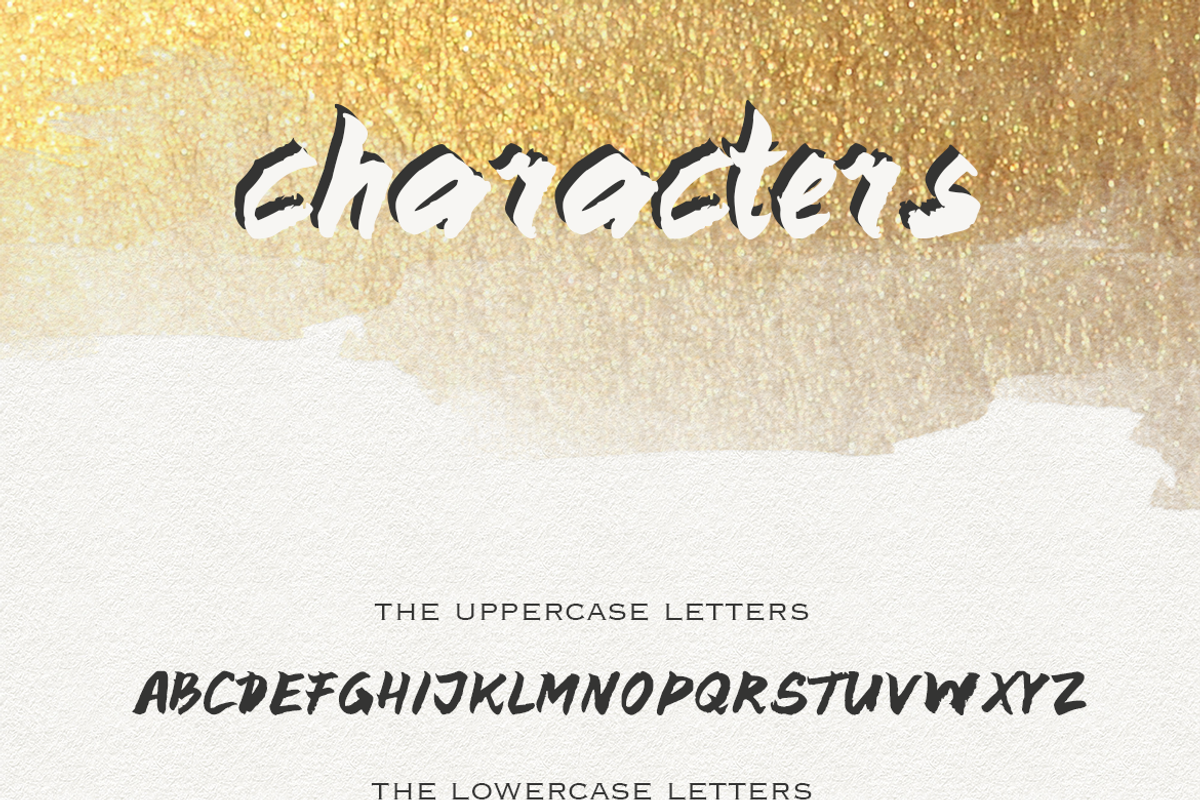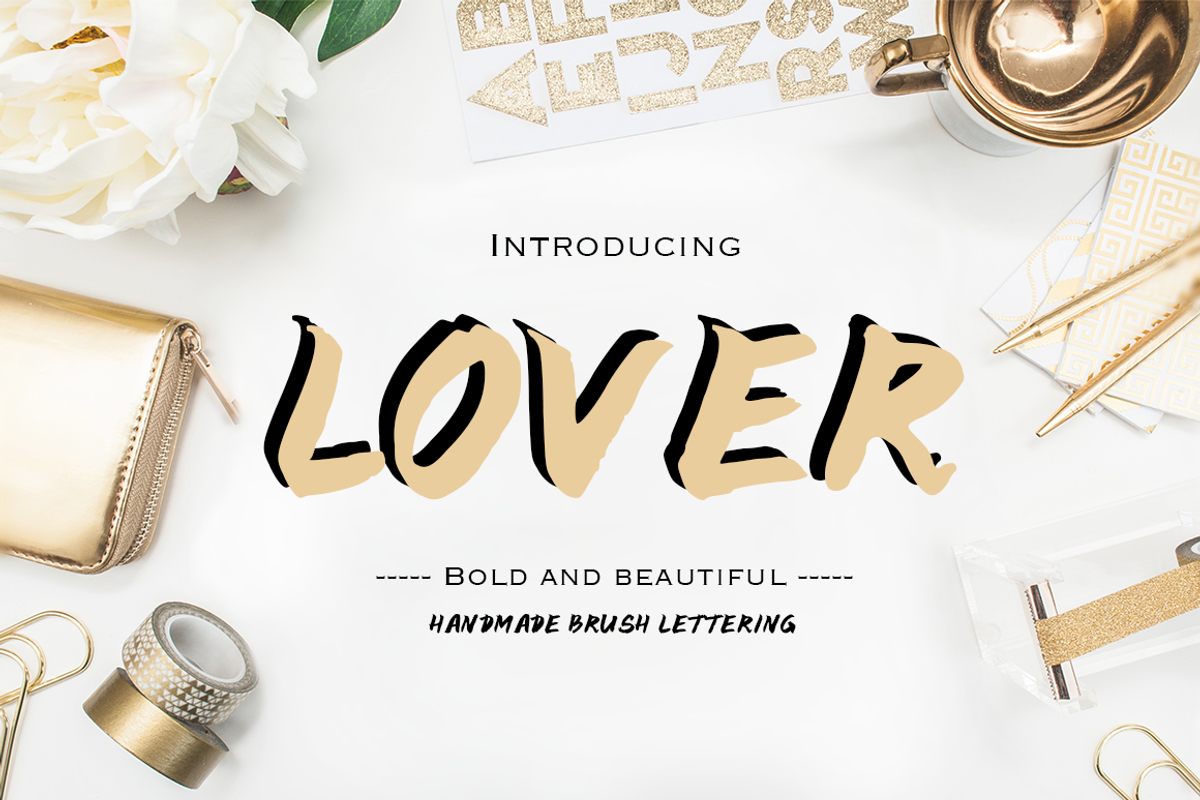
LOVER - Font
Introducing LOVER! ...a bold and beautiful new Marker Script ...with loads of attitude.
Making this font was a blast, and even more fun was working with it!